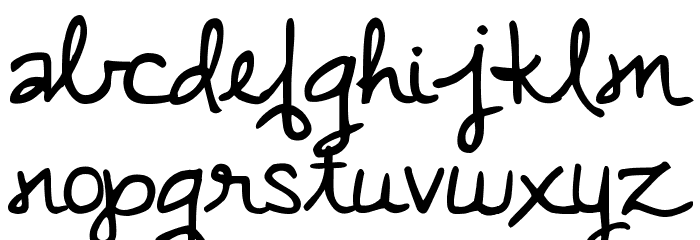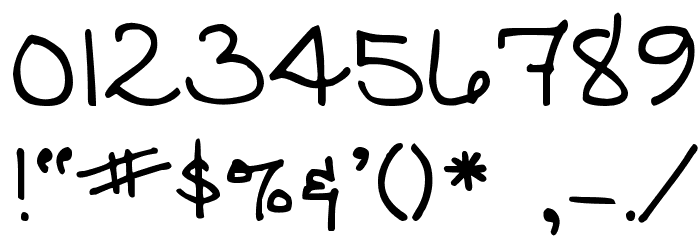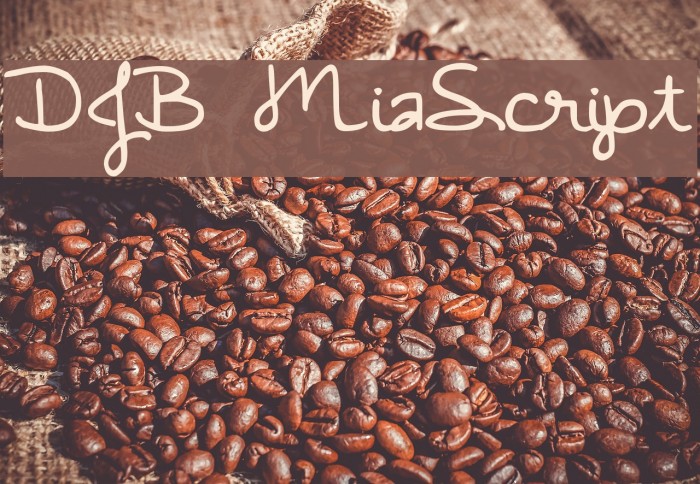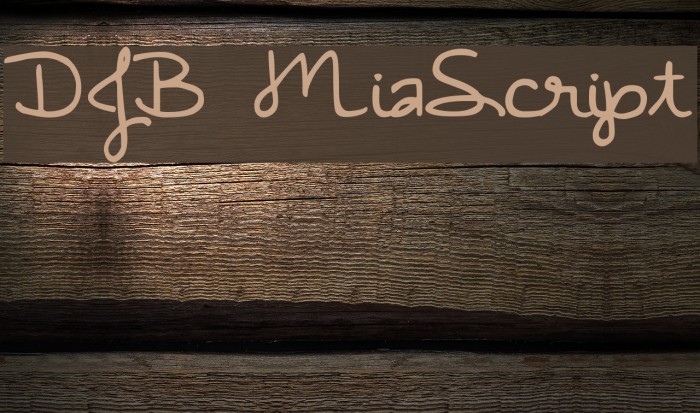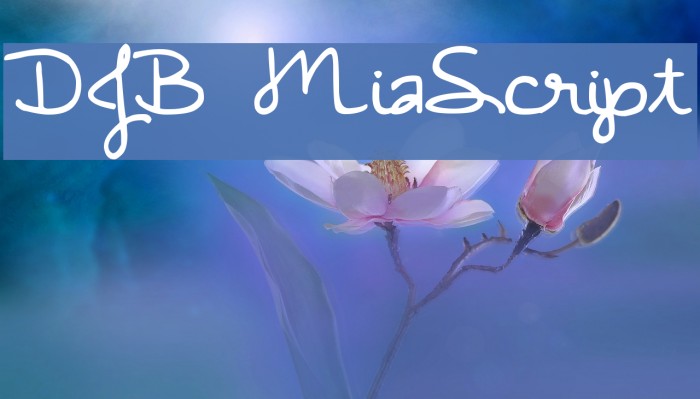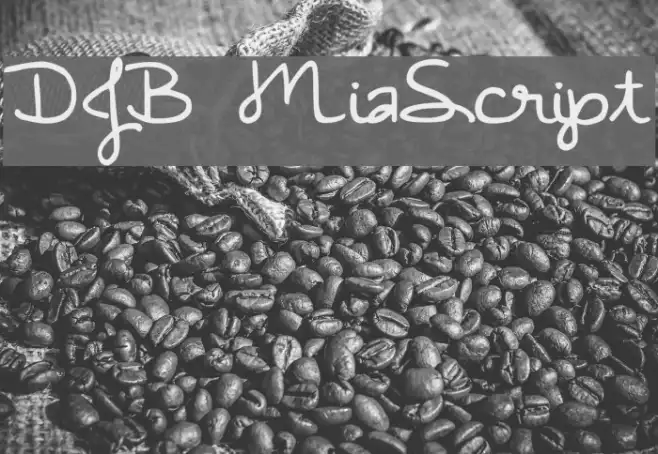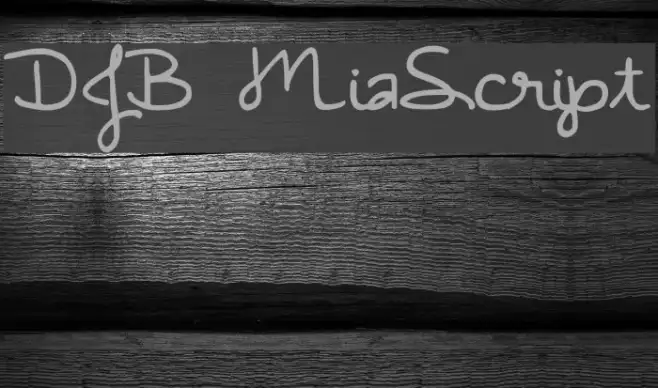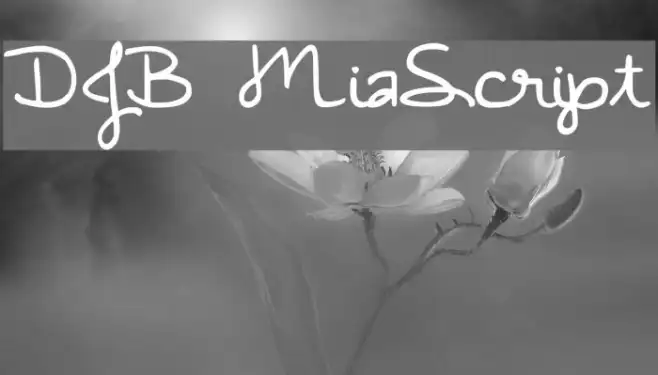
DJB MiaScript Font
This font features a playful and casual handwritten style, characterized by its fluid and connected strokes. The letters have a natural, flowing appearance with slight variations in thickness, giving it a personal and informal feel. The uppercase letters maintain a consistent height, while the lowercase letters exhibit a charming irregularity, enhancing the handwritten effect. The numerals are clear and legible, matching the overall style of the alphabet. Special characters are included, maintaining the same whimsical and approachable design. This font is ideal for projects that require a personal touch or a relaxed, friendly vibe.
A playful, casual handwritten font with fluid, connected strokes.
- Proposed Projects: Ideal for greeting cards, invitations, personal branding, and casual design projects.
- Overall Style: Casual, Playful
- Use Case: Headlines, Informal text, Personal projects